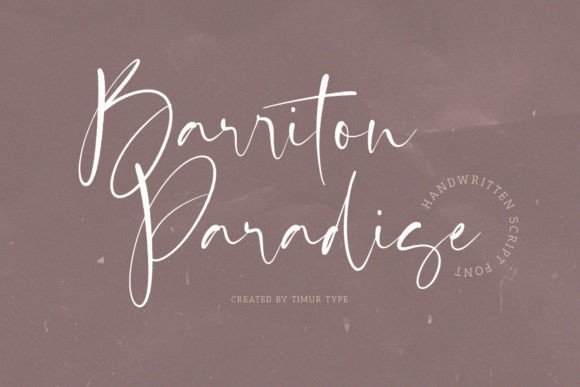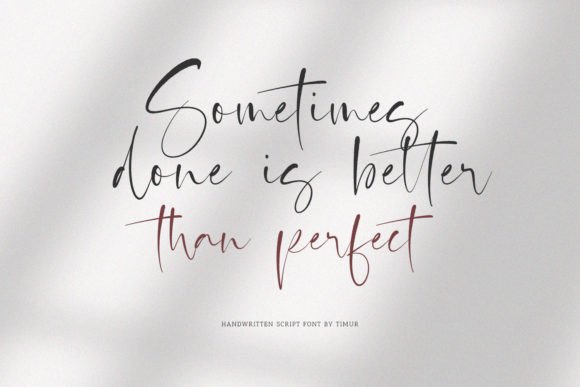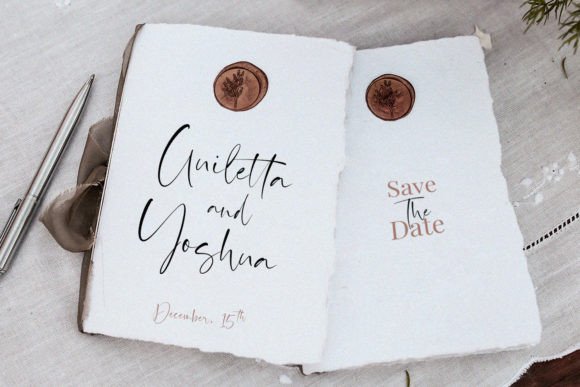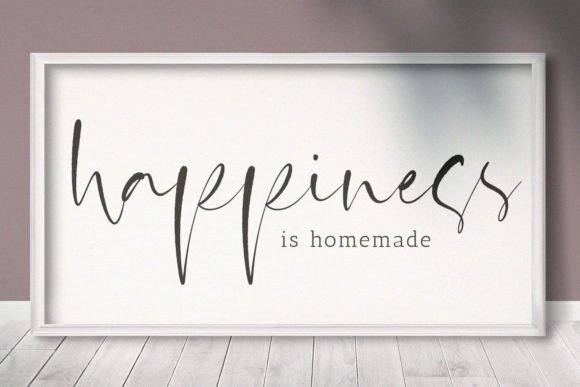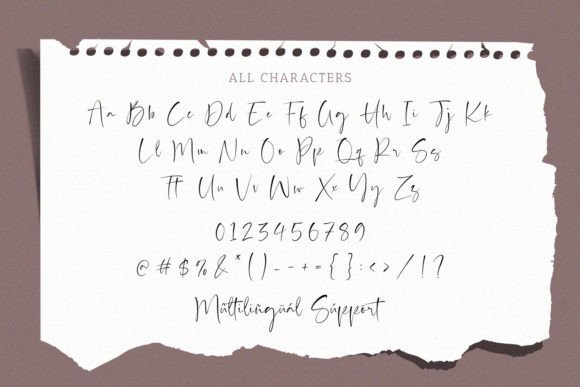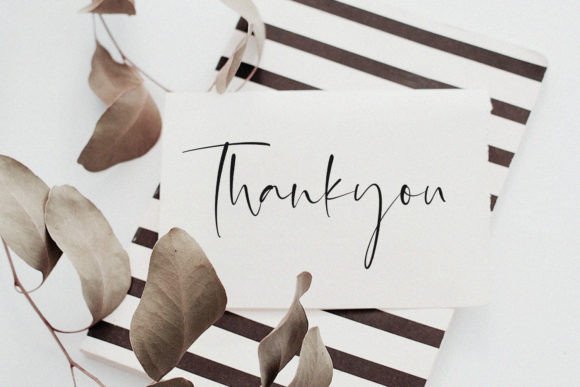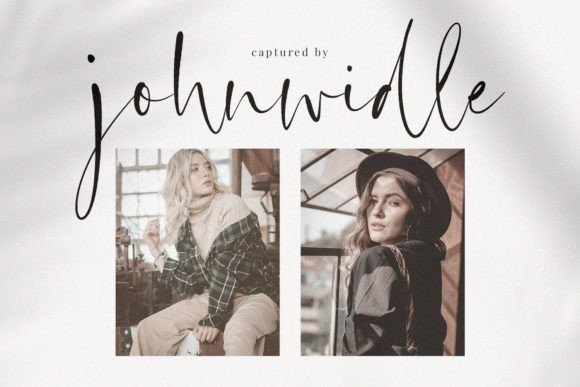
Barriton Paradise Font
About Barriton Paradise Font
Barriton Paradise is a delicate and elegant handwritten font. Its distinct and well-balanced letters make this font a masterpiece. Fall in love with its incredibly versatile style and use it to create spectacular designs!